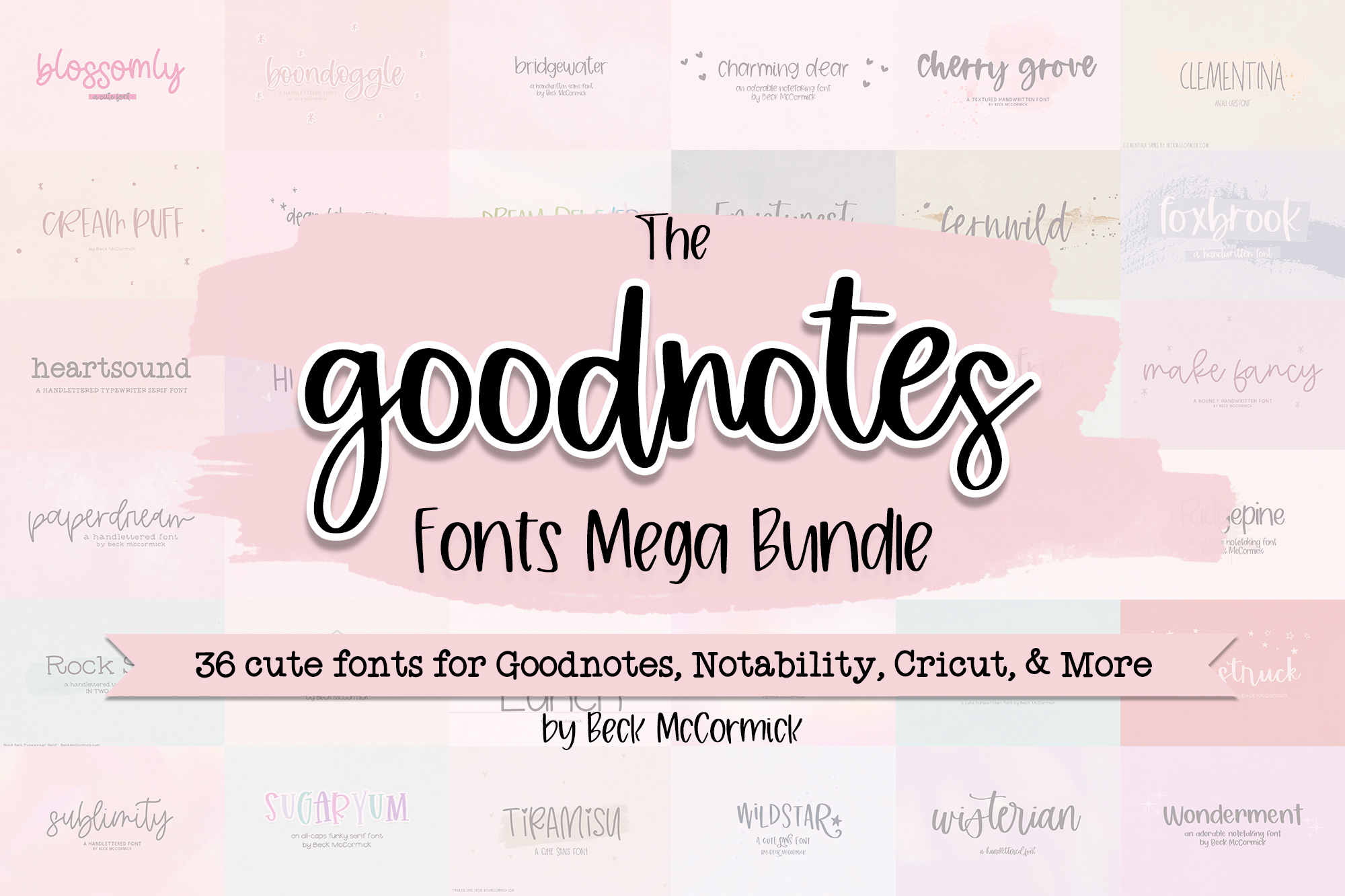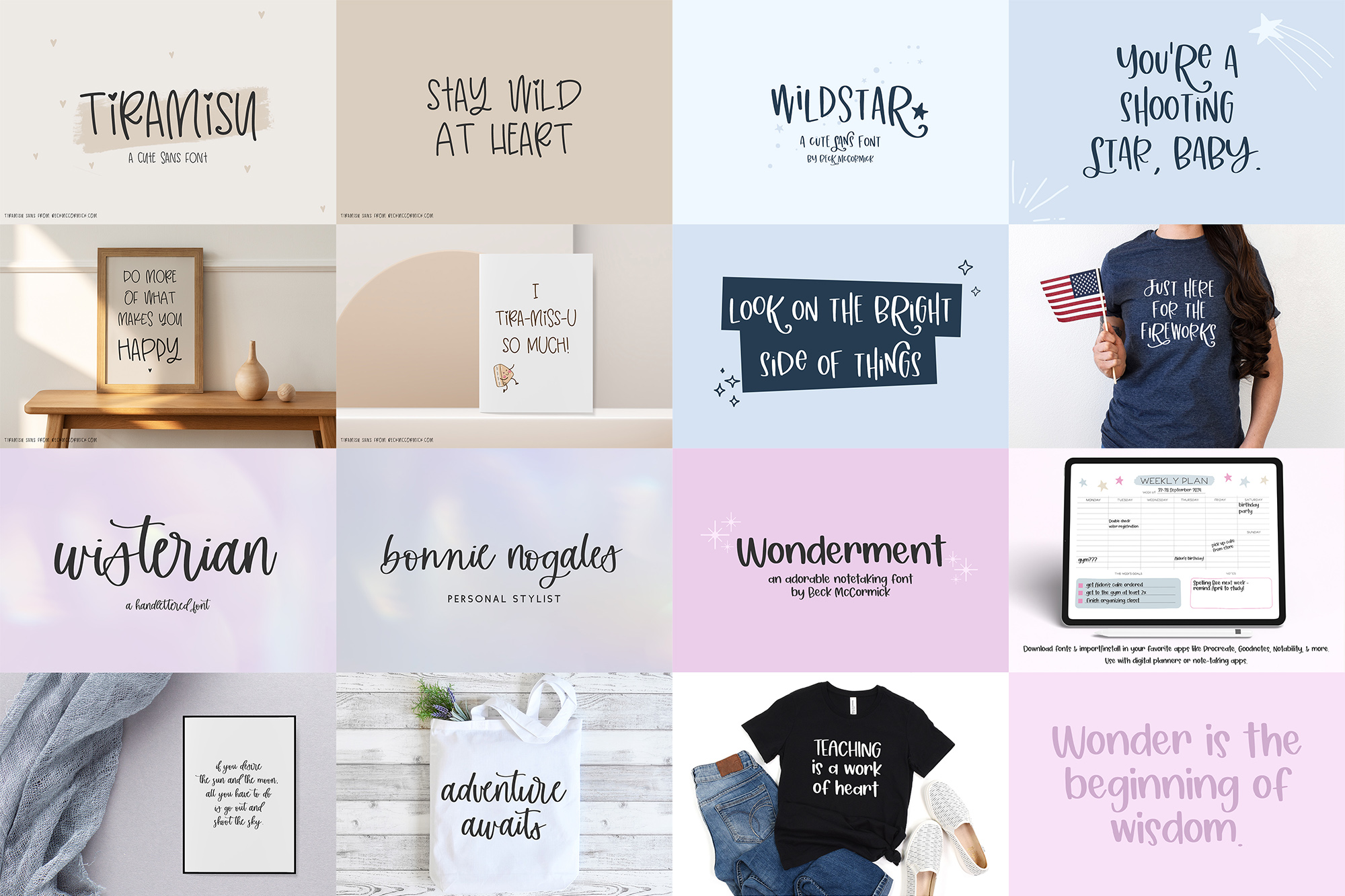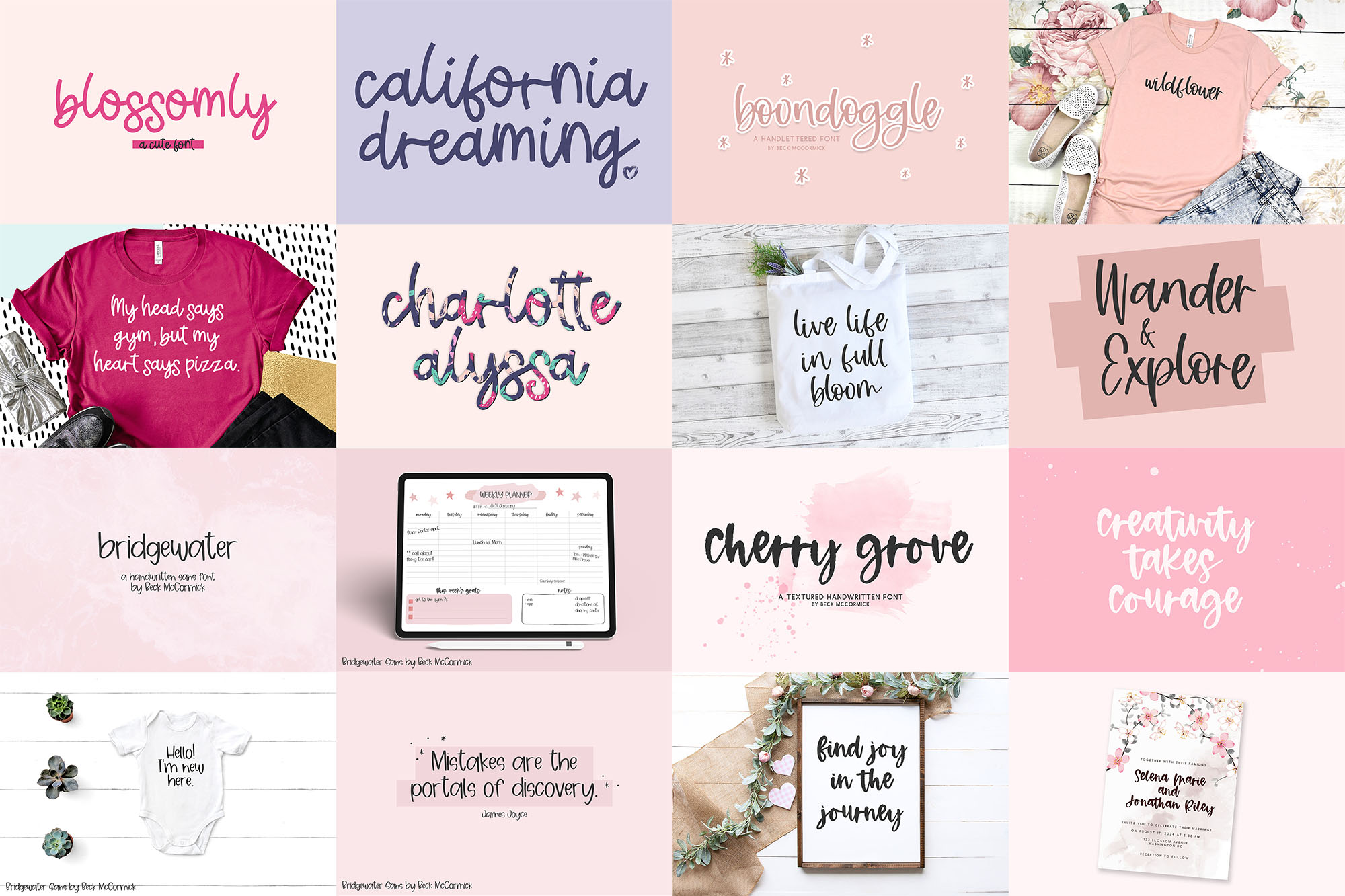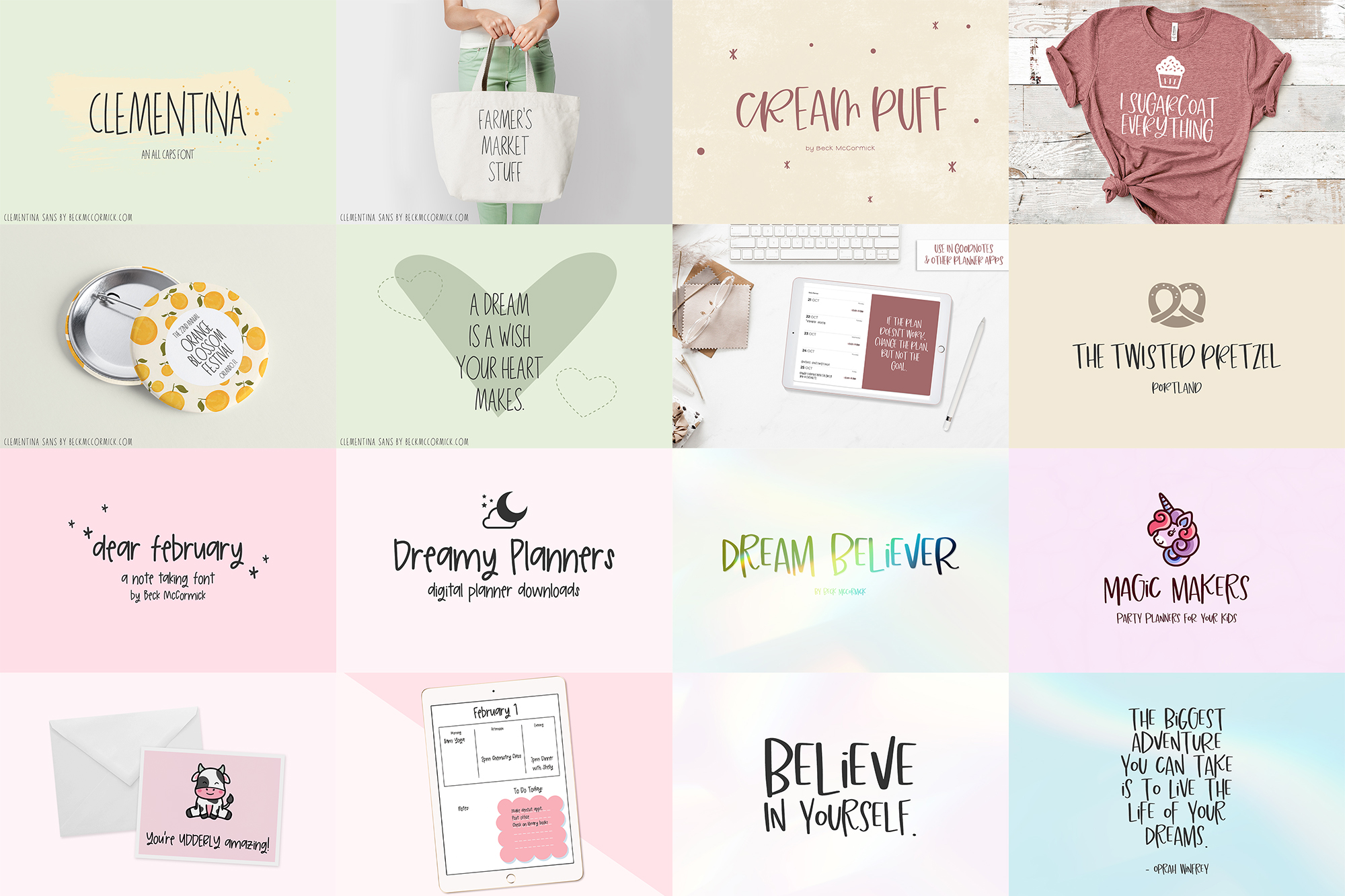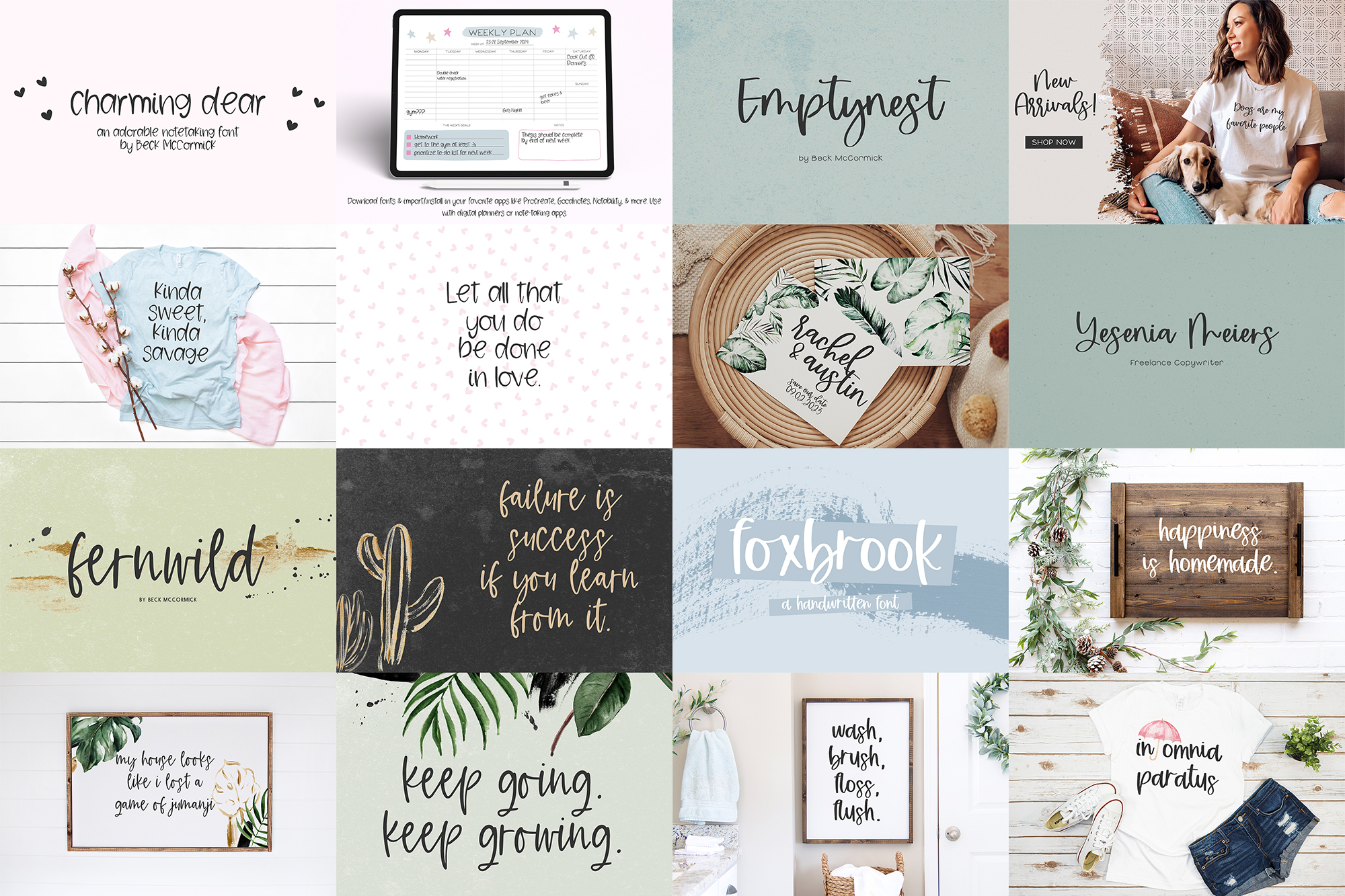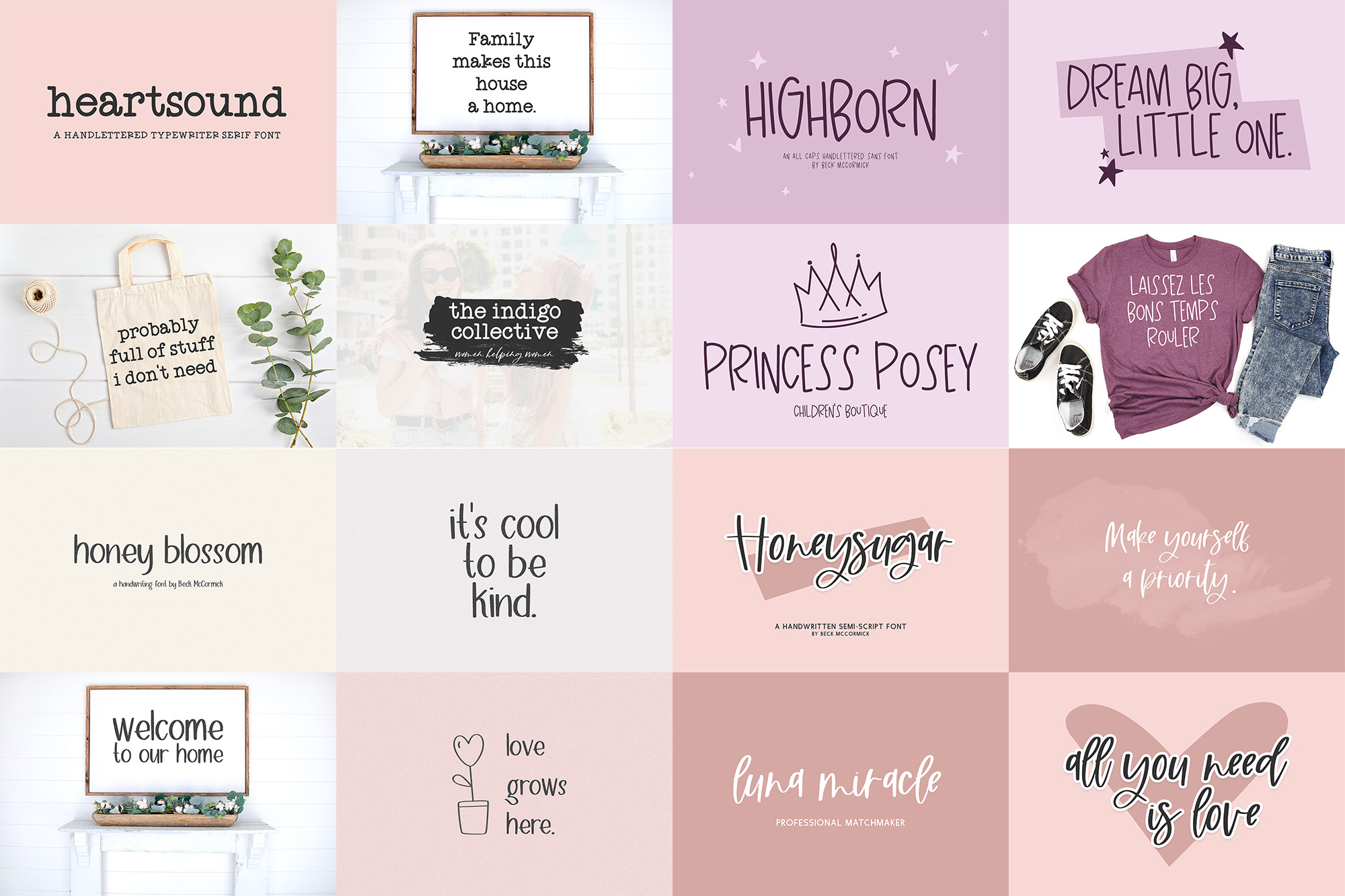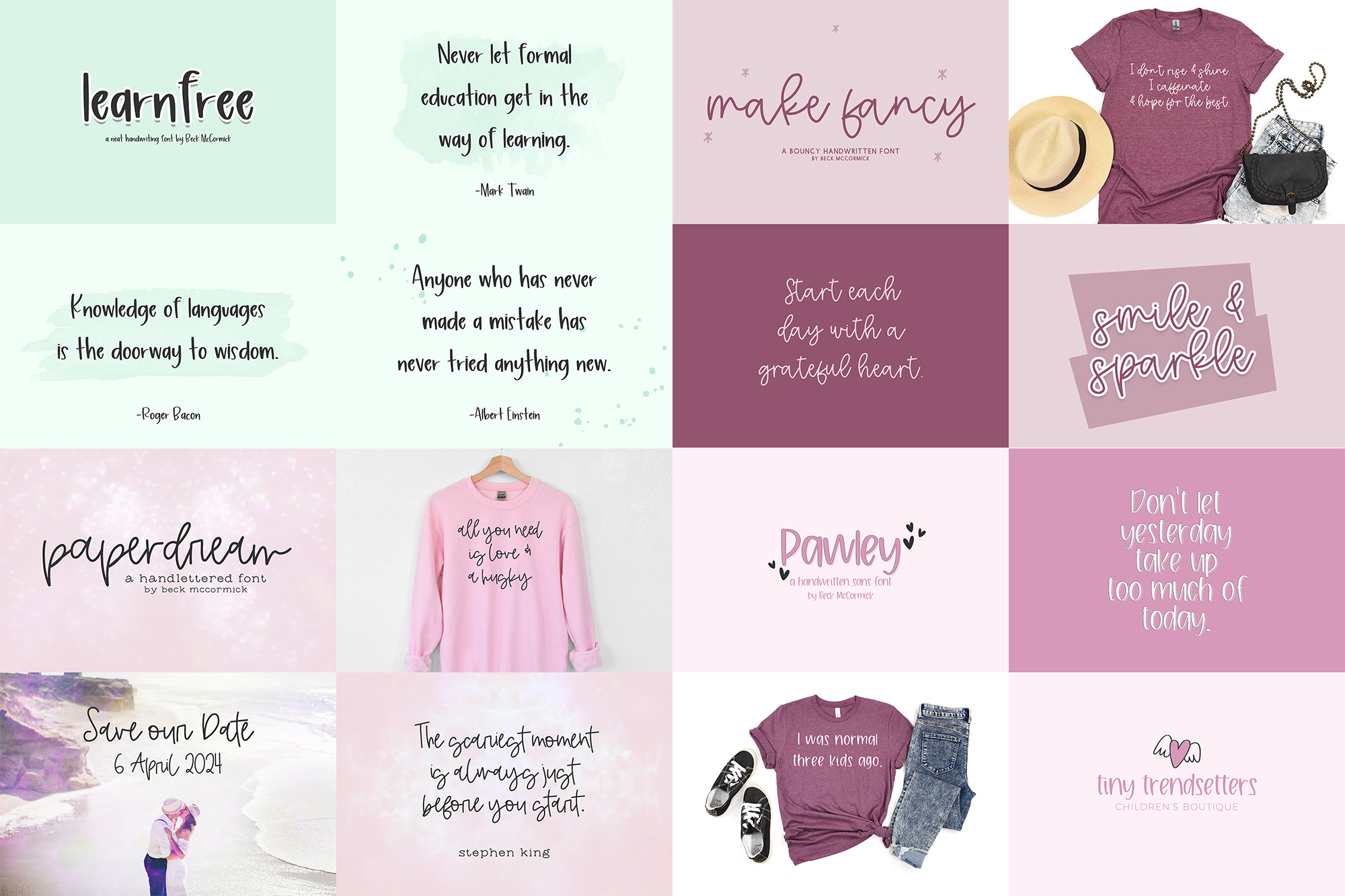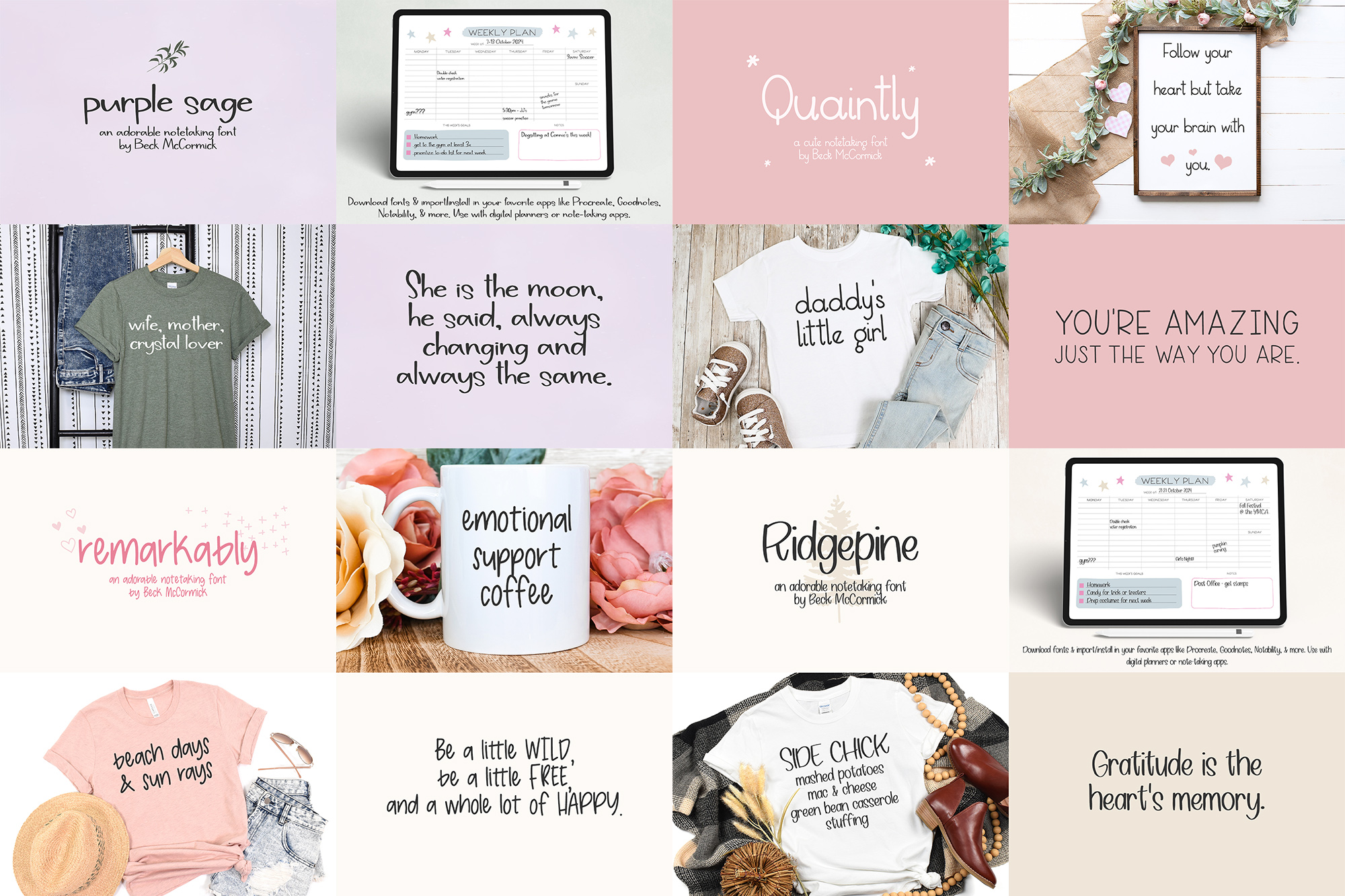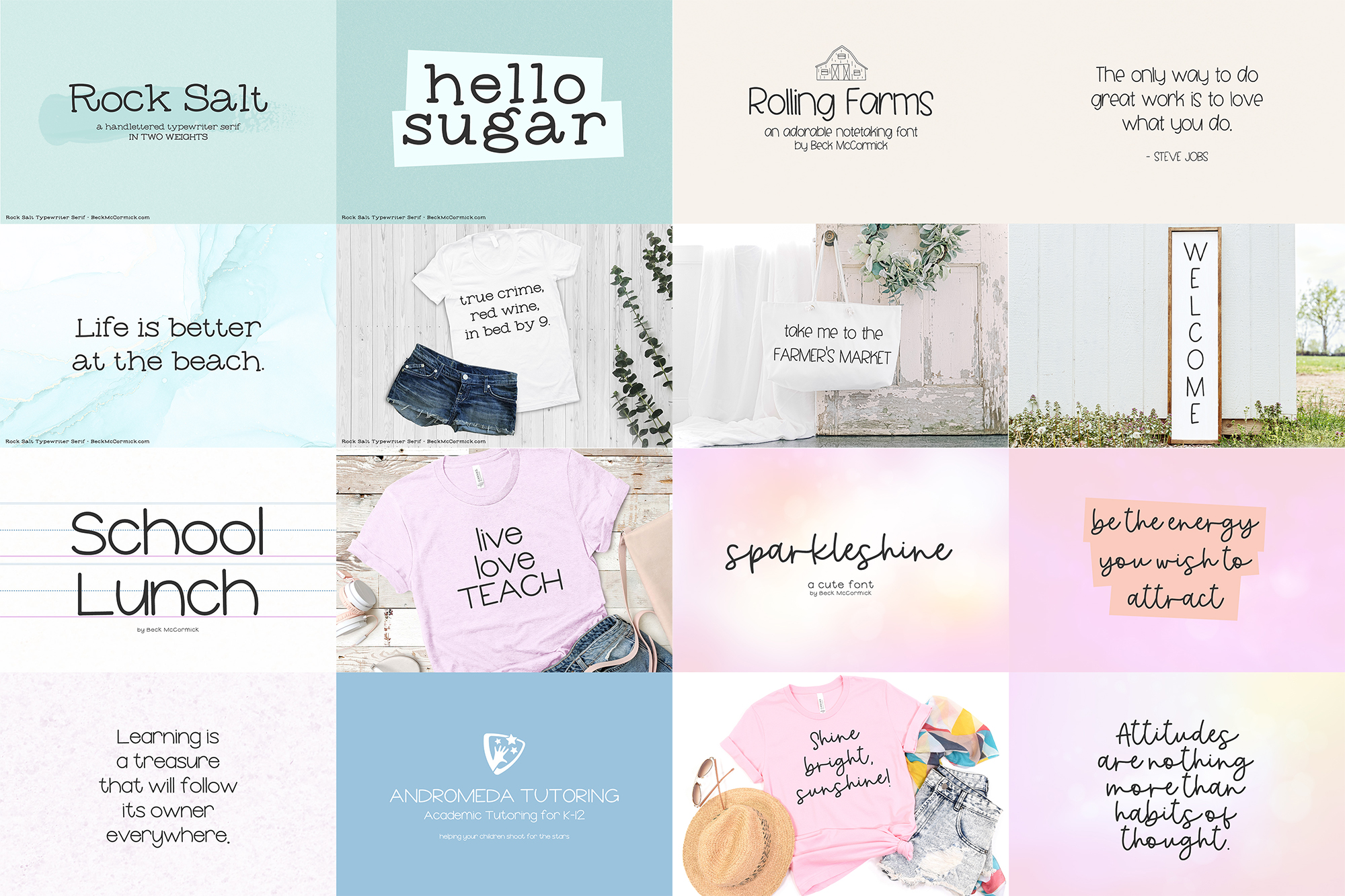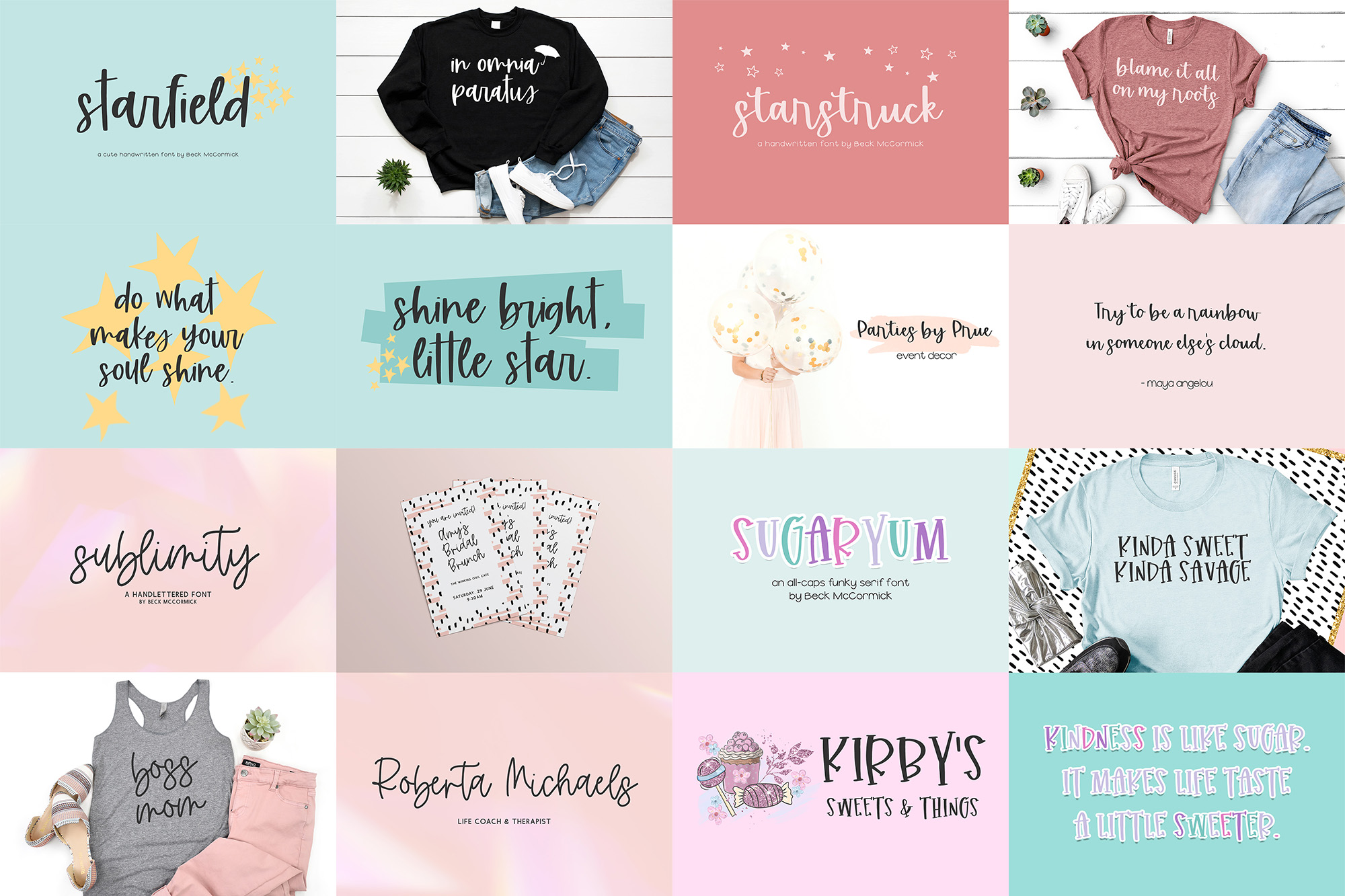
Blossomly Script
Boondoggle Script
Bridgewater Sans
Charming Dear Sans
Cherry Grove Script
Clementina Sans
Cream Puff Sans
Dear February Sans
Dream Believer Sans
Emptynest Script
Fernwild Script
Foxbrook Script
Heartsound Typewriter Serif
Highborn Sans
Honey Blossom Sans
Honeysugar Script
Learnfree Sans
Make Fancy Script
Paperdream Script
Pawley Sans
Purple Sage Sans
Quaintly Sans
Remarkably Sans
Ridgepine Sans
Rock Salt Typewriter Serif
Rolling Farms Sans
School Lunch Sans
Sparkleshine Script
Starfield Script
Starstruck Script
Sublimity Script
Sugaryum Serif
Tiramisu Sans
Wildstar Sans
Wisterian Script
Wonderment Sans
This bundle includes a wide variety of neat handwriting fonts that are legible and easy to read, as well as a selection of fun cursive fonts so that you can customize the look & feel of your digital planner with ease! These fonts are not just good for digital planning, though – you can also use them for creative projects such as logos & brand design, SVG designs for your business, farmhouse decor and crafts, marketing materials, social media graphics, t-shirt design, & so much more.
- Starfield Script
- Starstruck Script
- Sublimity Script
- Sugaryum Serif
- Tiramisu Sans
- Wildstar Sans
- Wisterian Script
- Wonderment Sans
Many of my fonts include special OpenType features, like swashes, alternate characters, and ligatures. It is best to use software like Adobe CC programs (Photoshop, Illustrator) that ensure you can easily access those features. In the event that the program you use doesn’t readily support OpenType features, you can use FontBook or Character Map to copy/paste the exact characters you need! Although this does take a bit more time, it still gives you the opportunity to make full use of the font + its features!